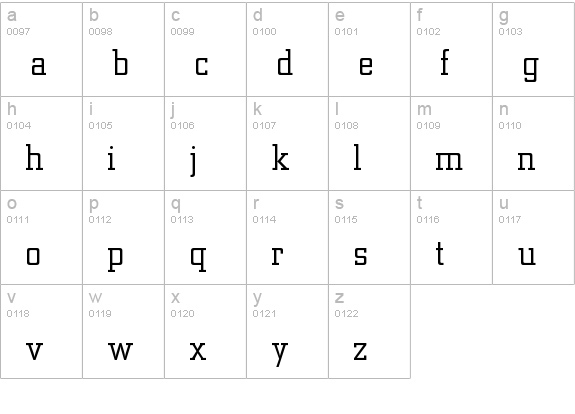
CityDEELig Font Details
CityDEELig font is a stylish and modern typeface that exudes sophistication and elegance. Its sleek lines and contemporary design make it perfect for a wide range of projects, from branding to editorial design. The font features a unique character set that is both eye-catching and versatile, allowing you to create stunning designs with ease. What sets CityDEELig font apart is that it is completely free to download at FontsMarket.com. This means you can access this premium font without any cost, making it an excellent choice for designers on a budget. With its clean and professional look, CityDEELig font is sure to elevate your design projects and leave a lasting impression on your audience. Download it today and add a touch of sophistication to your work!